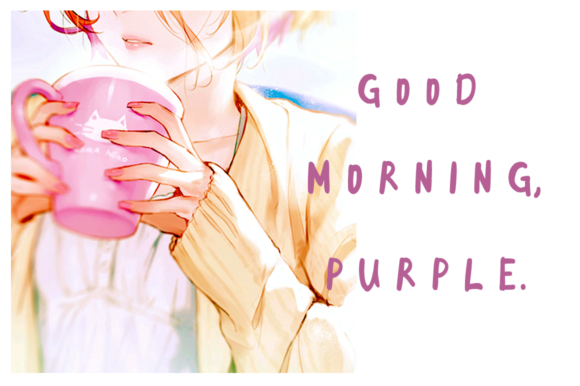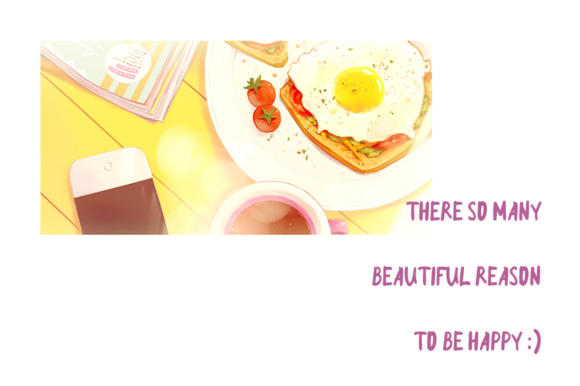
Good Morning Purple Font
About Good Morning Purple Font
Good Morning Purple is a fun sans serif font, perfect for amplifying the breeziness of your works. This handwritten font is a great way to add cohesion to your work, and is highly legible for use in headlines and body texts.